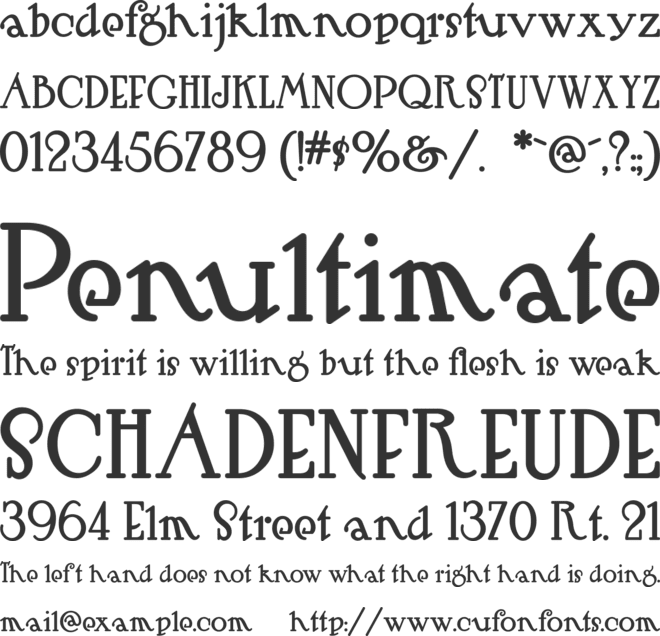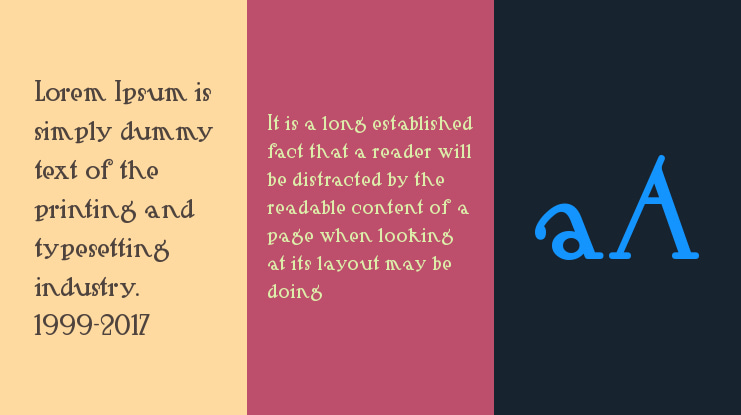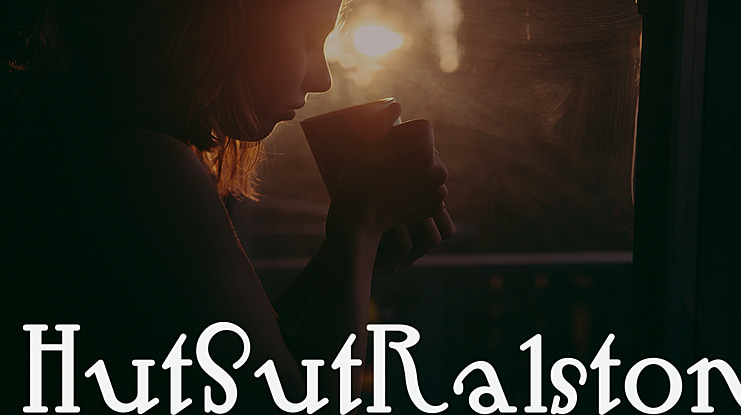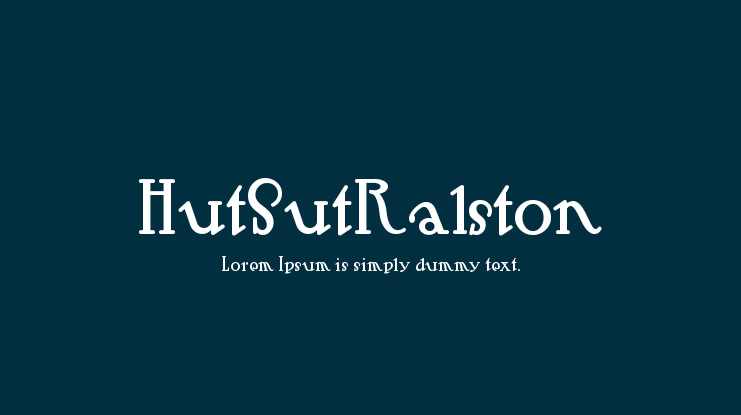
HutSutRalston Font
A modest little book from Gordon & George publishers of Seattle made its appearance in 1915. Its full, rather long-winded title was Presenting the Speed-Ball Pen: with Alphabets, Drawings and Designs Produced with This “Wizard of Lettercraft.” This rather zany font in based on a freehand two-stroke alphabet from that very book, and gets its name from one of many nonsense songs popular in the 1940s.